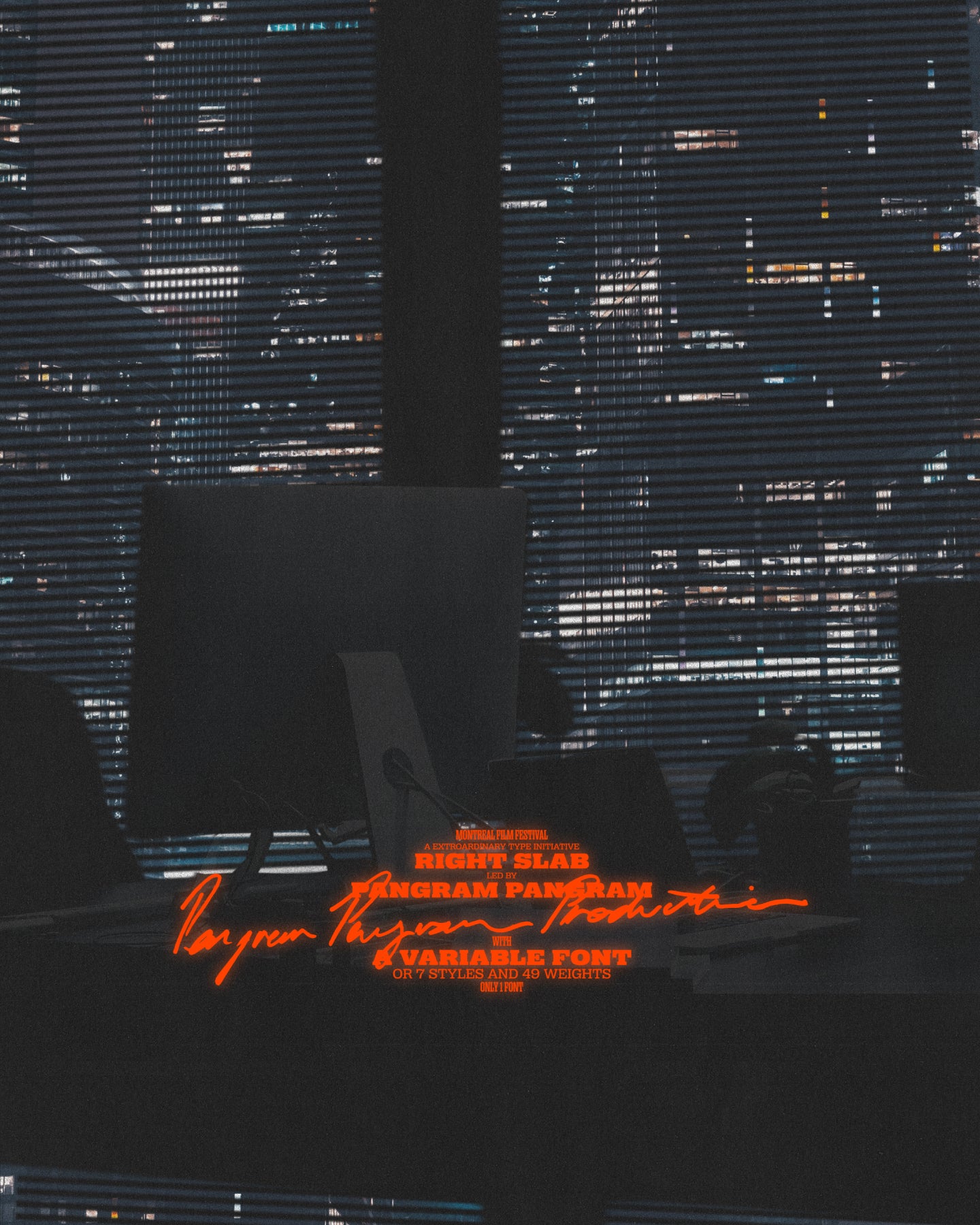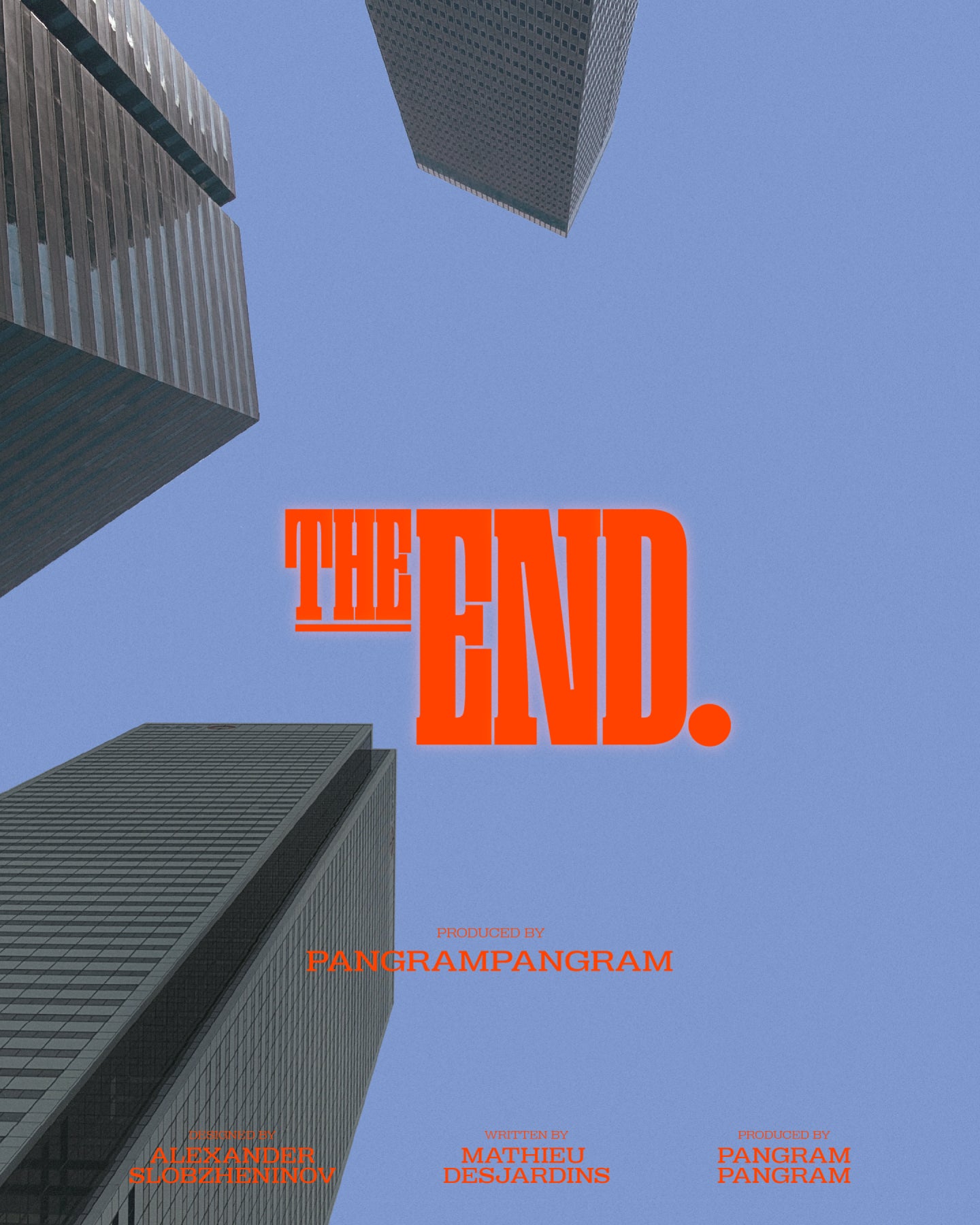
Right Slab Tight
Looks like a classic. Hits like a thriller.
Right Slab Tight
It’s giving Tarantino, but make it type.
Right Slab Tight
Introducing the premiere of Right ‘American Psycho’ Slab—an original Pangram production. Think vintage cinema grit meets ultra-modern type design. Chunky serifs, extended forms, and serious screen presence. The visual campaign? Straight out of a movie poster universe: suspense, style, swagger. You can almost hear the synths rising.
Right Slab Tight
Right Slab is the heavyweight of the Right family. Big. Bold. Brash. But like all the best antiheroes, once you get past that massive silhouette, there’s charm, nuance, and even a little humor underneath. It walks into the room and owns it—but it also knows when to soften the edges. Heavy styles hit like a monologue in slow motion. Lighter, narrower cuts bring just enough air to keep the dialogue flowing. Built as the serif sibling of Right Grotesk, Right Slab inherits the same low contrast, large x-height, and super-flexible variable structure—7 weights × 7 widths—but dials up the drama with blocky serifs and a stance that’s always just a little over the line. And that’s exactly where it shines: in the spotlight, full-screen, or blown up across a brutalist billboard. But don’t let the chunky vibe fool you—it’s more versatile than it looks. Use the Regular-ish styles for stylish text settings, or go full Tarantino with the Ultra-Heavy widths for maximum punch. It’s perfect for titles, posters, brands with attitude, or anything that needs to grab attention without screaming. Right Slab doesn’t whisper. It delivers its lines slow, smooth, and unforgettable.
Right Slab Tight is variable
Right Slab Tight's Features
Alternate a
a
→
a
Alternate g
g
→
g
Circled Numerals
0123
Black Circled Numerals
4567
Arrow
→
Slashed Zero
0
→
0
Case sensitive forms
{[(OH-@11:11!)]}
Looks like a classic. Hits like a thriller.
Introducing the premier of - Right ‘American Psycho’ Slab, an original Pangram production. Slab was giving us major tarantino vibes, those chunky serifs paired with an extended structure. We created a set of imagery that feels like the campaign for a new movie release. How will it all end?
Right Slab is that big boi of the family. Massive at first glance, the typeface quickly turns out to be your good old friend. In its heavy styles, Right Slab unapologetically occupies all of the space with its chunky serifs, while light and narrow cuts leave some more air. The typeface is perfect for grabbing attention in a nice and fun way. It feels most comfortable in large display sizes, but styles near Regular can handle some paragraphs for text too. Right Slab is a serif brother of Right Grotesk, from which it has inherited low contrast, large x-height and a ton of variable styles covering 7 weights × 7 widths.